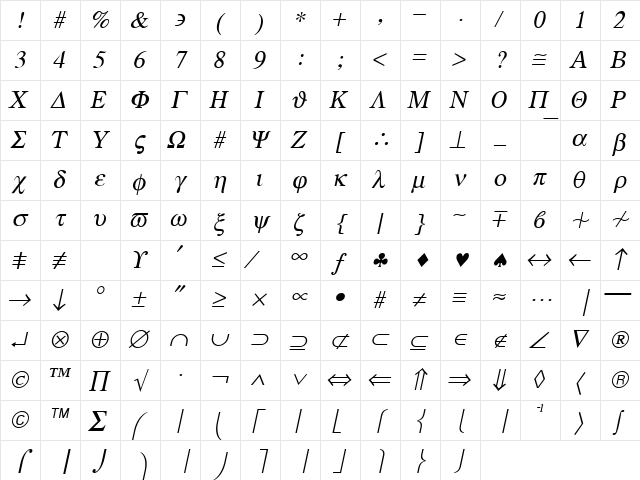
Greek is a composed and adaptable typeface that performs quietly and consistently across a wide range of design contexts. The slanted form adds forward momentum and visual energy.
Pro Tip: Use Greek for emphasis, pull quotes, and subheadings where its slanted energy can add rhythm to the layout.